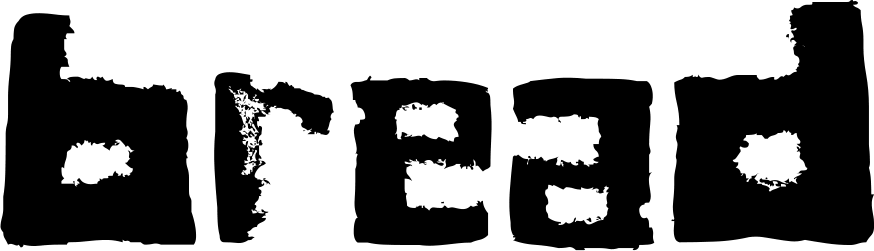
By using Disintegration, you have one of the most powerful destroy fonts to produce graphic content. Disintegration is a great font for designing posters, applications, and web pages. This font has a creative design and conveys a sense of pride to the audience and makes them watch your video or read your text.